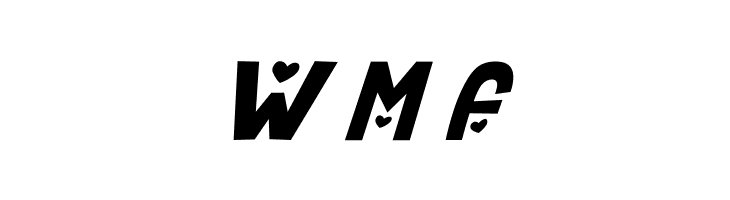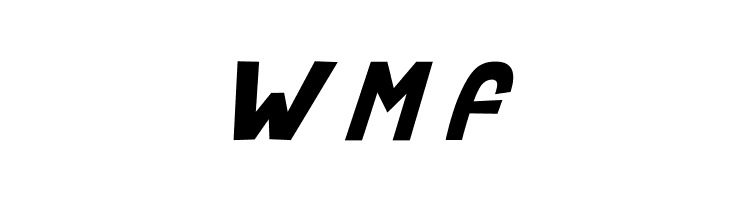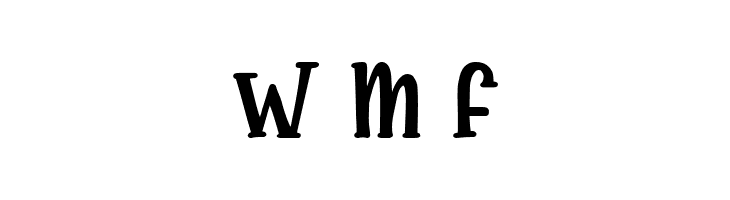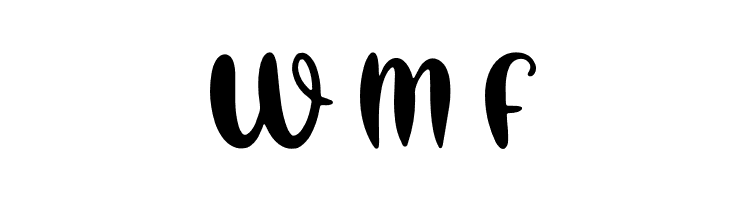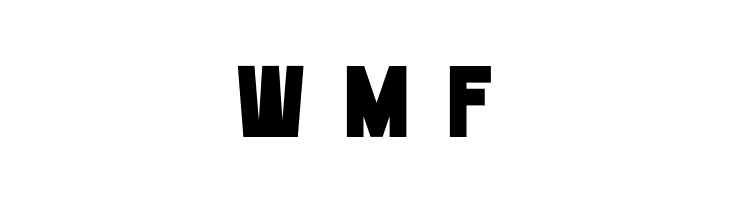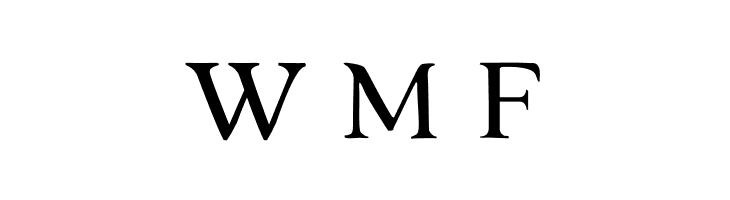
• Hello Rainbow
( Fonts by Subectype & Orenari )
A playful, bold font with rounded, decorative letterforms.
• Hello Sweet - Personal Use
A playful, bold script font with a whimsical, hand-drawn style.
• HelloToysRegular
• Helmantica
( Fonts by Luigi Della Rosa )
A classic serif font with elegant curves and sharp serifs, ideal for traditional and stylish designs.
• Hermazz
( Fonts by Dumadi Studios )
A playful, hand-drawn font with bold, irregular strokes and a whimsical style.
• hestia
A modern, elegant script font with dramatic flourishes and smooth curves.
• Hestia Flame
A bold, geometric font with strong, uniform strokes and a commanding presence.
• Hey Charlie
A bold, playful handwritten font with thick, rounded strokes.
• Hey Elsie
( Fonts by Subectype )
A bold, dynamic font with a playful, retro aesthetic.
• Hey Elsie Cute